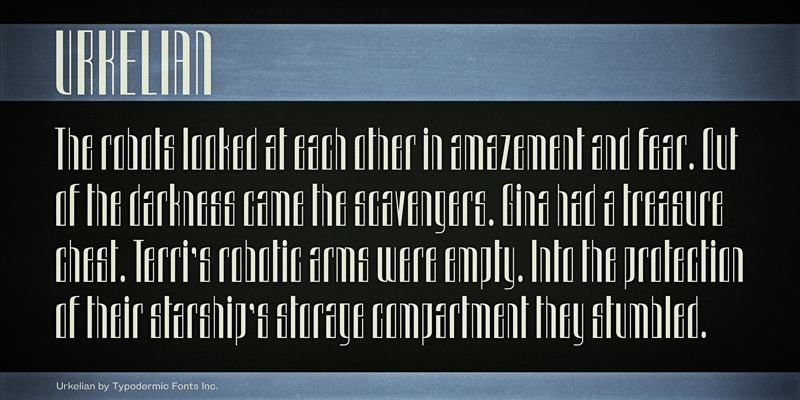
Urkelian is a font designed during a time of utter downheartedness and despair in my life. Yes, it was designed during the final episode of Family Matters . . . a tragic day for all humankind. This font includes a license that allows free commercial use: sometimes referred to as a desktop license. This allows you to install the font on a computer and use it to create posters, web graphics, game graphics, t-shirts, videos, signs, logos and more. Read the license agreement for details. If you'd like to embed this font in an app, ebook, on the web or anything that's not covered by the desktop license agreement, visit the link below. You'll find distributors who offer different types of licenses or you can contact me for help. http://typodermicfonts.com/urkelian/ |